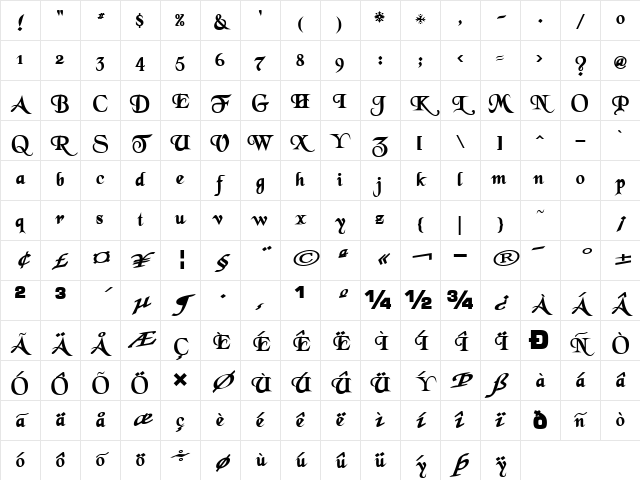
GrenelefeScriptSSi Bold
Design Context for GrenelefeScriptSSi
GrenelefeScriptSSi flows with the natural rhythm of handwritten lettering, making it ideal for designs that call for warmth and personal expression. Its bold stroke weight gives it real presence on the page.
Font Pairing: Combine GrenelefeScriptSSi with a simple geometric sans for maximum contrast - the tension between flowing curves and clean structure is a classic typographic pairing.
Pro Tip: Use GrenelefeScriptSSi for short runs of text - names, titles, or taglines. Extended body copy in script faces tires the eye quickly.